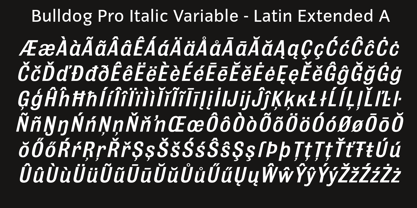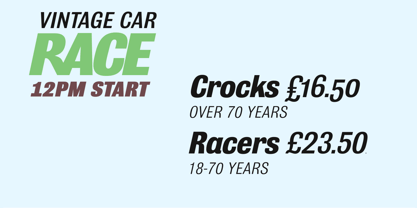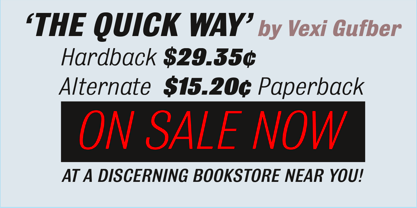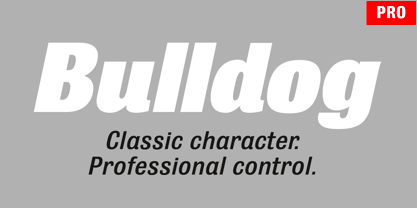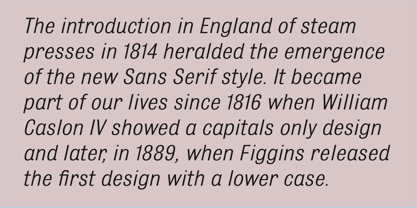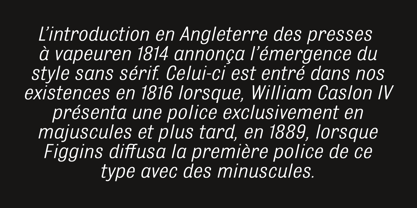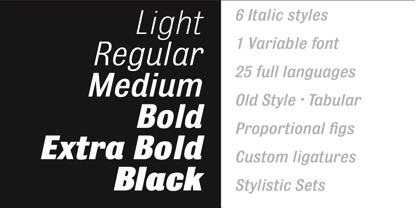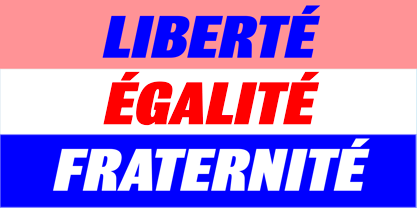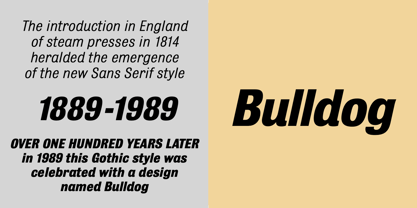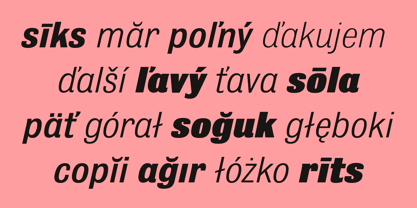
Bulldog Pro Italic
The Bulldog Pro Italic Font Family was designed by Adrian Williams and published by Club Type. Bulldog Pro Italic contains 6 styles and family package options. More about this family
Classic character & Professional control. Bulldog Pro Italic re-imagines Adrian Williams’ 1989 classic for today’s typographic landscape. Rooted in the robust Gothic and Grotesque traditions of the late nineteenth century, Bulldog Pro Variable draws particular inspiration from the 1870 Figgins Sans — a pivotal moment in the evolution of Sans Serif design. This new edition is not a simple revival. It has been rebuilt with modern spacing, refined proportions, and a new light weight. Bulldog Pro introduces expanded language coverage with Latin Extended‑A, tabular and proportional figures, old style numerals, unlimited fractions, custom ligatures, and stylistic sets. Designed for clarity, impact, and versatility, Bulldog Pro brings more than a century of typographic heritage into a format ready for contemporary branding, editorial design, and digital environments. Available as Roman, Italic, and Roman + Italic packages. • Variable Roman or Italic font (full weight axis range Light-Black) • Static fonts (all weights roman + italics) • Web fonts on application (for both variable and static).
Adrian Williams began his career converting many established metal designs for the new filmsetting devices in 1969; an era when Other Equipment Manufacturers offered their devices, each with its own kind of unit system for the operating program. During the 70s he became involved with converting typefaces to digitized systems and is responsible for many original designs which he redrew, working with each Manufacturer to make fonts for their unique formats. This led to the production of custom made fonts, designs for Corporate Identity and Branding commissions for Renault, Marks & Spencer, Jaguar Cards, Foster's Lager and many more familiar names! CLUB TYPE was founded in 1985 and established to offer a range of exclusive typefaces arising from a demand for quality typefaces on dedicated typesetting systems created prior to the emergence of PostScript. Members received the entire annual design output as fonts meeting their specific machine requirements, with four color specimen books imprinted for Members' distribution. Between 1986 and 1990, nine families were converted from the original drawings which began the Club Type Collection which continues to grow. Advances in technology have made the Club Type Collection widely available for many popular electronic publishing systems' formats. Club Type now offers its products direct to Users and also world-wide through distribution agreements with Font vendors world-wide. Newly released typefaces and special offers update the Collection. From May 1996 Club Type products were being offered on the Internet.